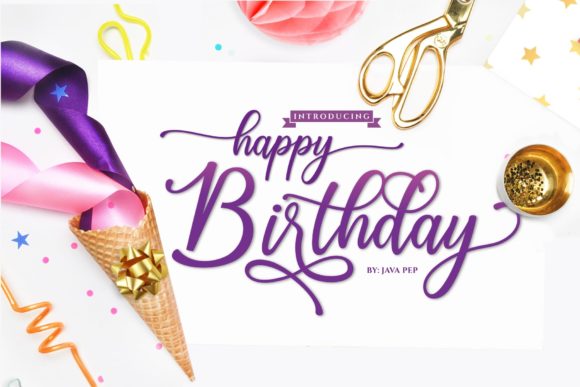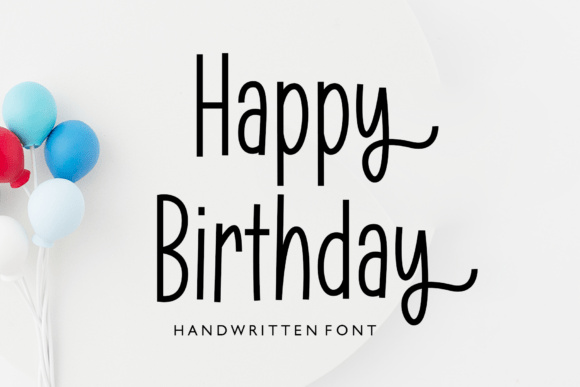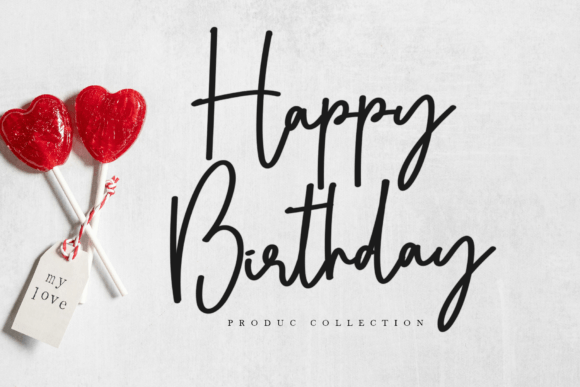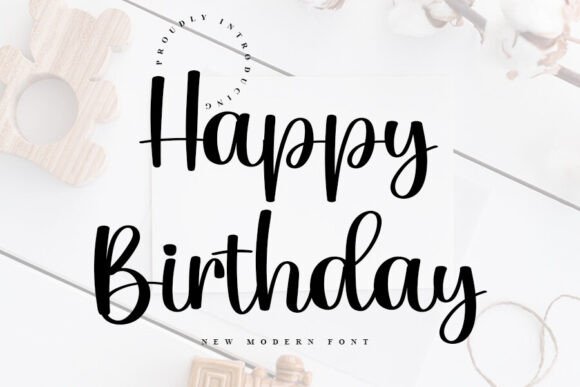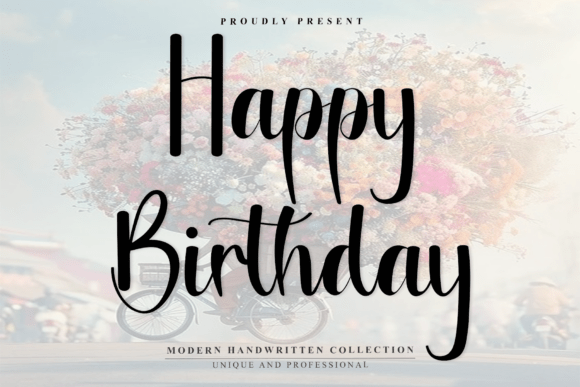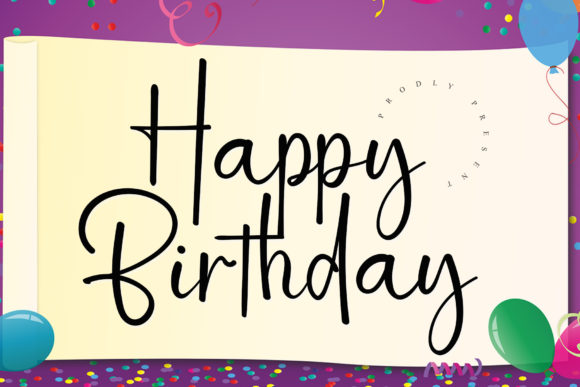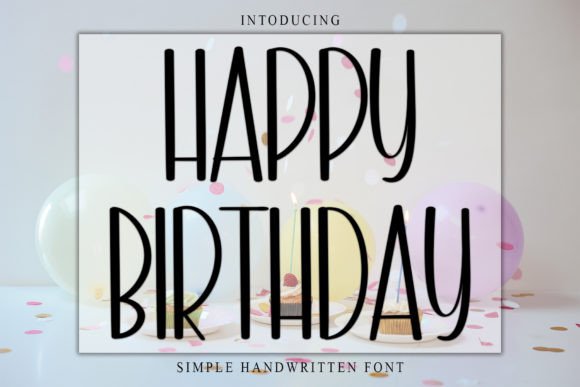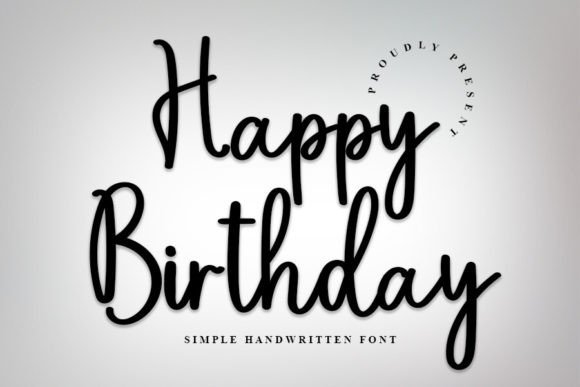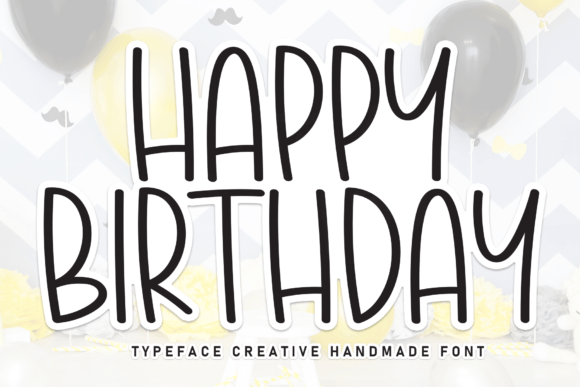
Happy Birthday fonts
20 Happy Birthday fonts that actually bring the party to your designs
Let’s be real: nothing kills the party vibe faster than boring text on a birthday card. As a designer, I live for those moments when the typography alone makes you smile.
Finding those perfect happy birthday fonts is like adding the confetti and the candles all at once. I’ve been digging through my library to find the Creative Fonts that bring real personality to a celebration.
Whether you need something elegant for a milestone or wildly playful for a kid’s party, these happy birthday fonts are my go-to picks for adding that human touch. Ready to make your greetings unforgettable? Let’s dive in.
1 Happy Birthday Font
First up on my list is a true gem simply named “Happy Birthday.” This isn’t just a font; it genuinely feels like a friend wrote you a card. It’s a sweet and friendly handwritten typeface that captures that authentic, human touch we often lose in digital design.
What I love about its natural and unique style is just how incredibly versatile it is. I have used this font for everything from whimsical party invitations to heartfelt social media posts, and it always delivers. The only limit really is your imagination! It proves that sometimes, the simplest, most personal strokes are the most powerful in design.
2 Happy Birthday Font
If you really want to elevate your designs and push them into new territory, let me introduce you to another version of the ‘Happy Birthday’ font that is pure magic. This one is bursting with creative allure and has become my secret weapon for projects that need that extra “wow.”
I am talking about taking your YouTube banners from basic to eye-catching, or turning a simple logo mockup into something truly distinctive. I have even used it for elegant wedding invitations and, trust me on this, it works wonders on unique ID cards. Its beauty lies in its simplicity mixed with that eccentric uniqueness.
Whether you are crafting flyers or diving into DIY projects, this font makes your work stand out instantly. Honestly, it is an invaluable tool for any designer looking to inject freshness into every stroke and even propel their business forward.
3 Happy Birthday Duo Font
Okay, this next find is a total game-changer, and honestly, it might be my favorite discovery this month. Let me introduce you to the Happy Birthday Duo Font. This isn’t just one typeface; it is a dynamic duo designed to party.
Imagine pairing playful, chunky display letters with a cheerful, flowing script. That is exactly what this font does. The bold, tall sans-serif gives you that solid, fun foundation, while the bouncy, interconnected script layer dances right alongside it. The result? Maximum visual impact. You can layer them, color them differently, and create genuinely custom typography that stops the scroll.
I have been using this for everything from birthday invitations to colorful event flyers and digital stickers. It is that perfect blend of modern and romantic that makes kids’ announcements pop or adds heart to a greeting card. Plus, with PUA encoding, accessing all those gorgeous glyphs and ligatures is a breeze.
4 Happy Birthday Font
Sometimes the fonts that surprise me most are the ones that look almost too simple at first glance. And this Happy Birthday font? It falls exactly into that category.
At its core, it is just a cute and simple lettered handwritten typeface. Nothing flashy, nothing overcomplicated. But here is the thing I have learned after years in this industry: those are exactly the fonts that end up saving my projects. This one has quietly become my go-to when I need something that feels personal without trying too hard.
No matter the topic whether I am designing a cozy dinner invite or a quick social story this font just works. It has this natural way of elevating any creation without screaming for attention. Honestly, my font library feels incomplete without it now.
5 Happy Birthday Font
Alright, I saved something special for this part of the list. Meet the Happy Birthday Font Trio a contemporary script family that broke my brain a little when I first tried it.
What makes it different? That irregular baseline. Most fonts sit perfectly straight like little soldiers, but this one dances. It moves. It breathes. And that is exactly why it works so beautifully for wedding invites, gratitude notes, or even logos that need a feminine, chic touch. I tested it with some watercolor textures last week, and honestly? Magic. The letters just melt into the organic shapes like they belong there.
That wraps up my personal roundup of happy birthday fonts that actually deserve a spot in your library. Some bold, some gentle, all ready to party. The way I see it, great design starts with typography that has personality. Whether you are crafting invites or just making someone smile, the right font changes everything.